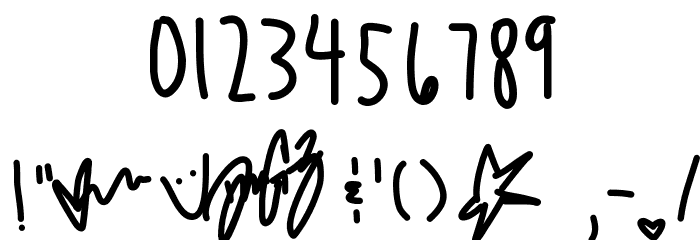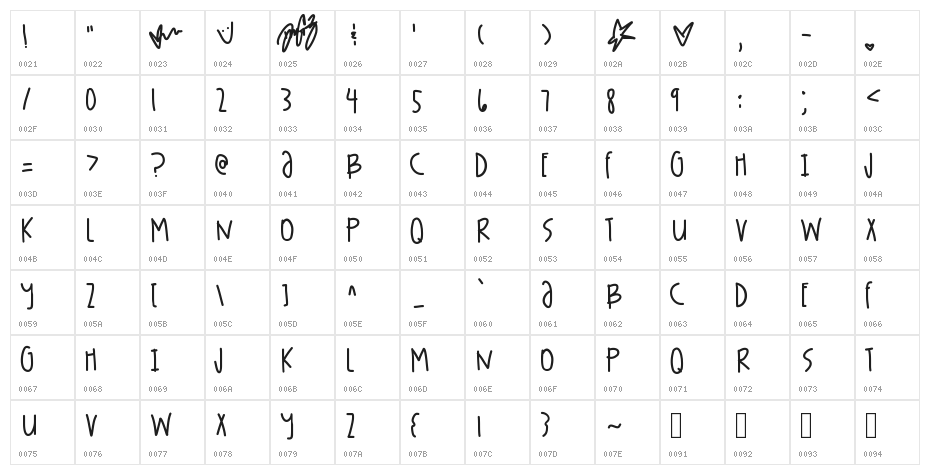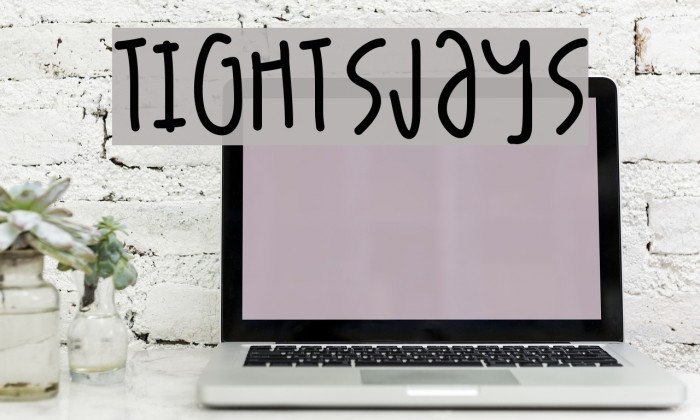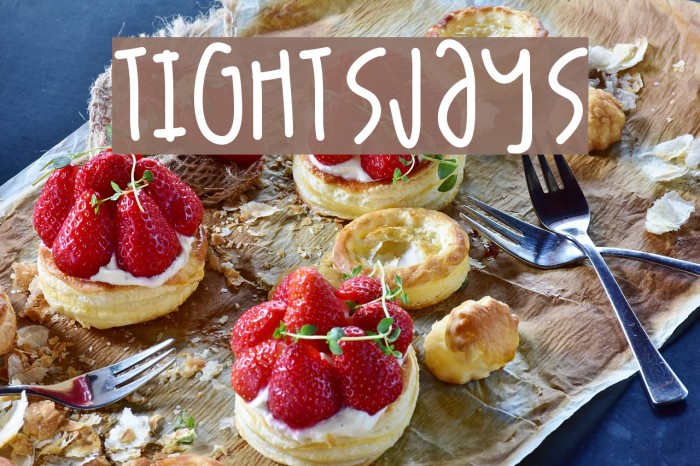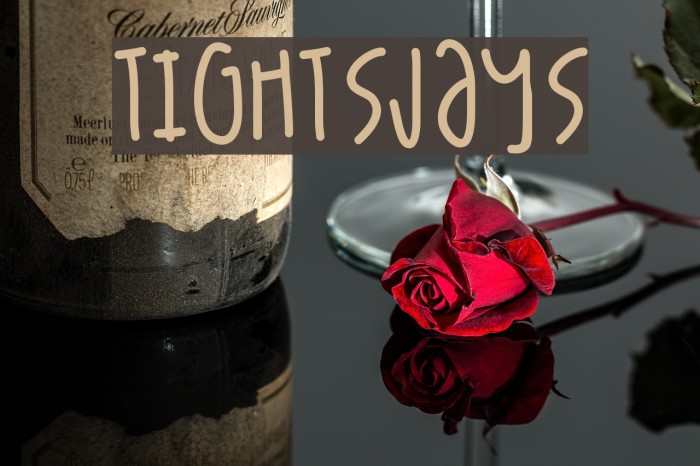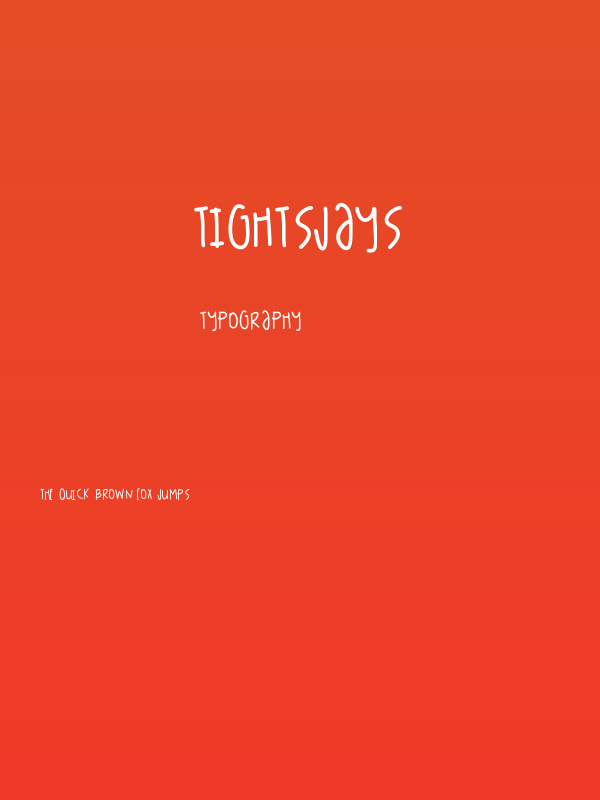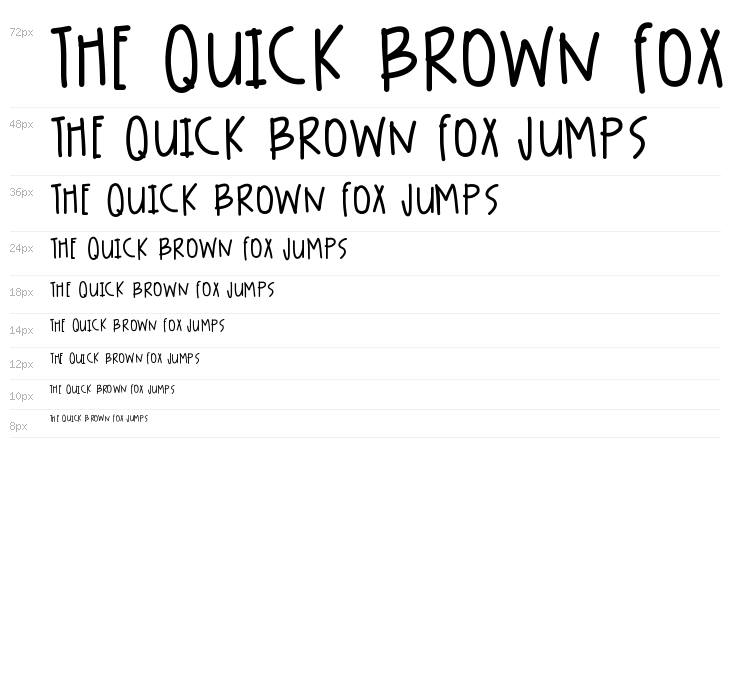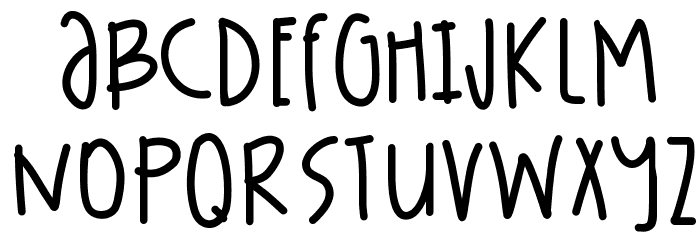
TightsJays Font
TightsJays Description
This font features a playful and casual handwritten style, characterized by its tall, narrow letters with a slight slant. The strokes are consistent in width, giving it a uniform appearance, while the rounded edges add a friendly and approachable feel. The uppercase and lowercase letters maintain a cohesive look, with the uppercase being slightly larger and more pronounced. Numbers and special characters follow the same design principles, ensuring readability and consistency across all characters. This font is ideal for projects that require a personal touch or a relaxed, informal vibe.
| Use Case | Headlines, Logos, Informal text |
| Proposed Projects | Ideal for greeting cards, children's books, casual branding, and social media graphics. |